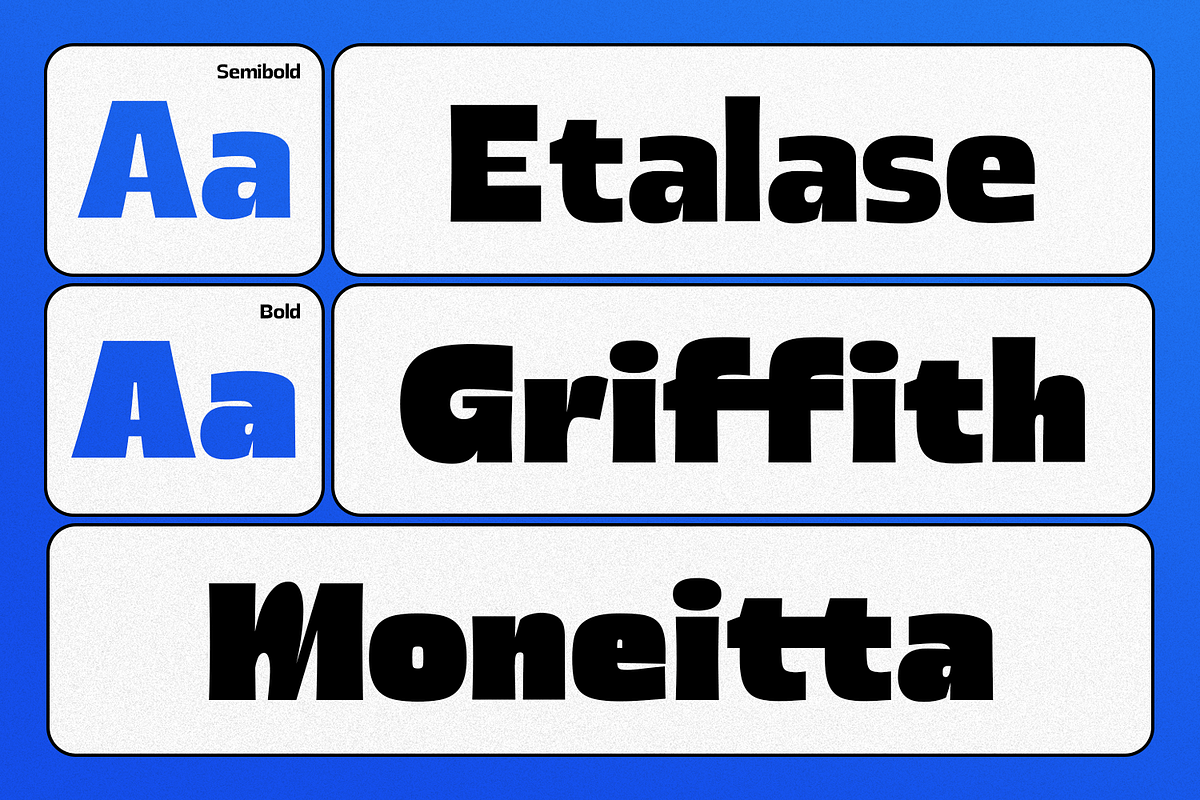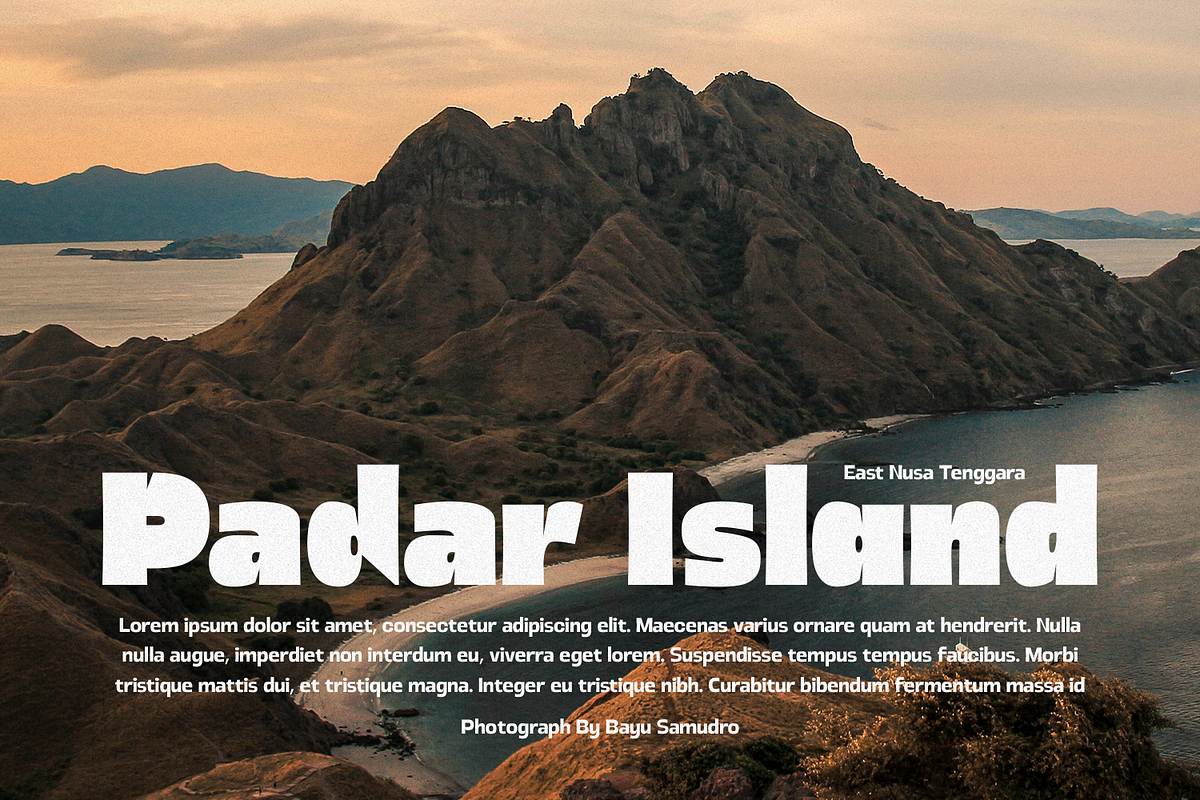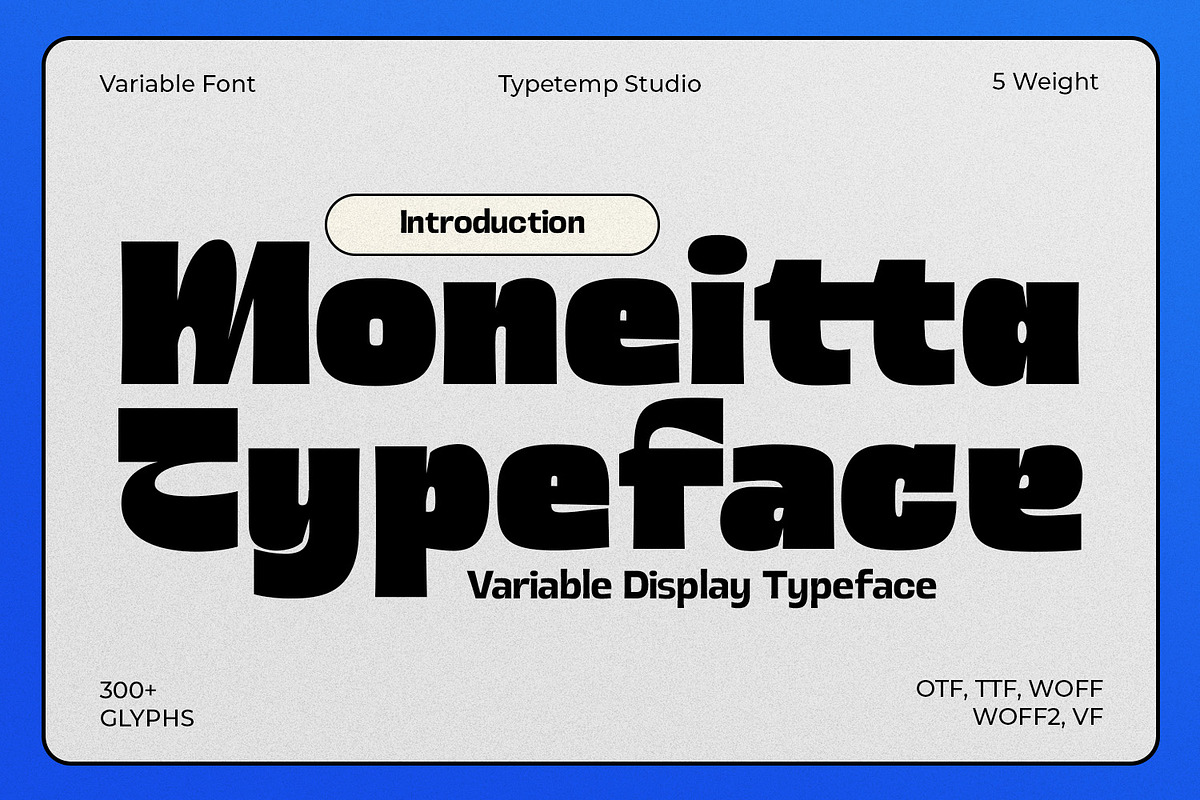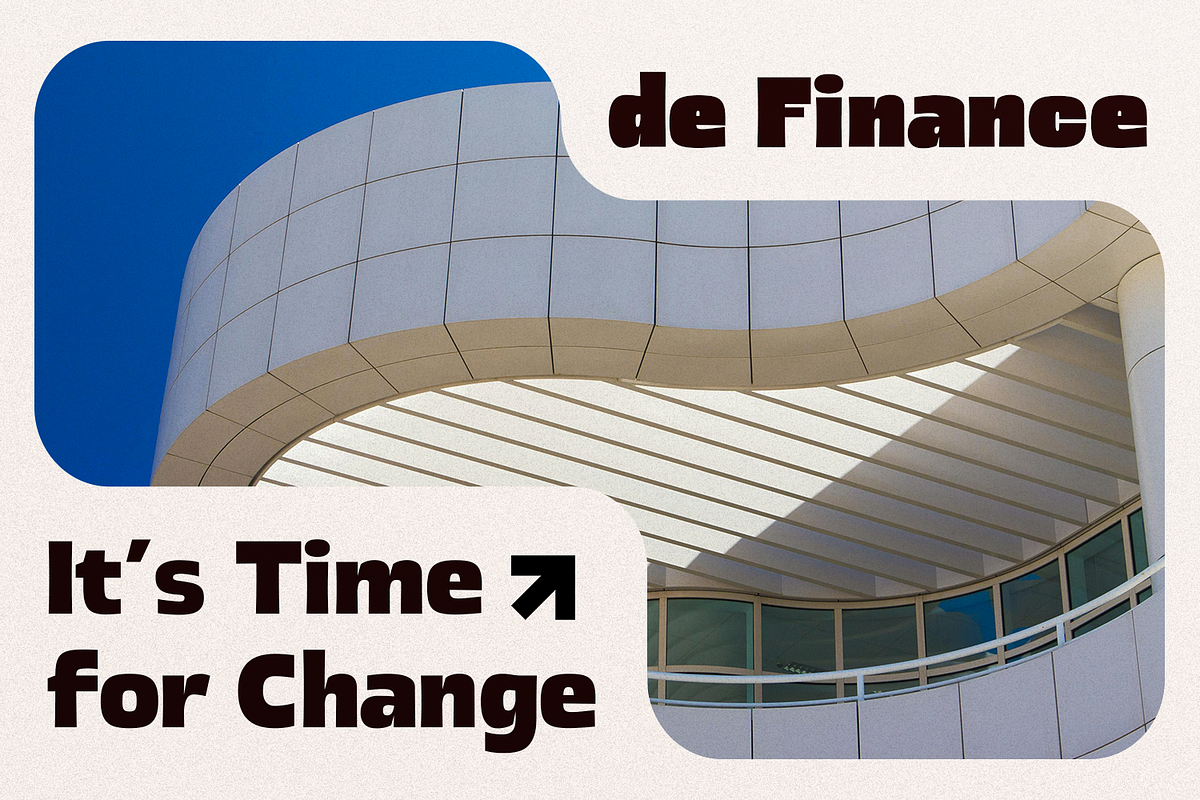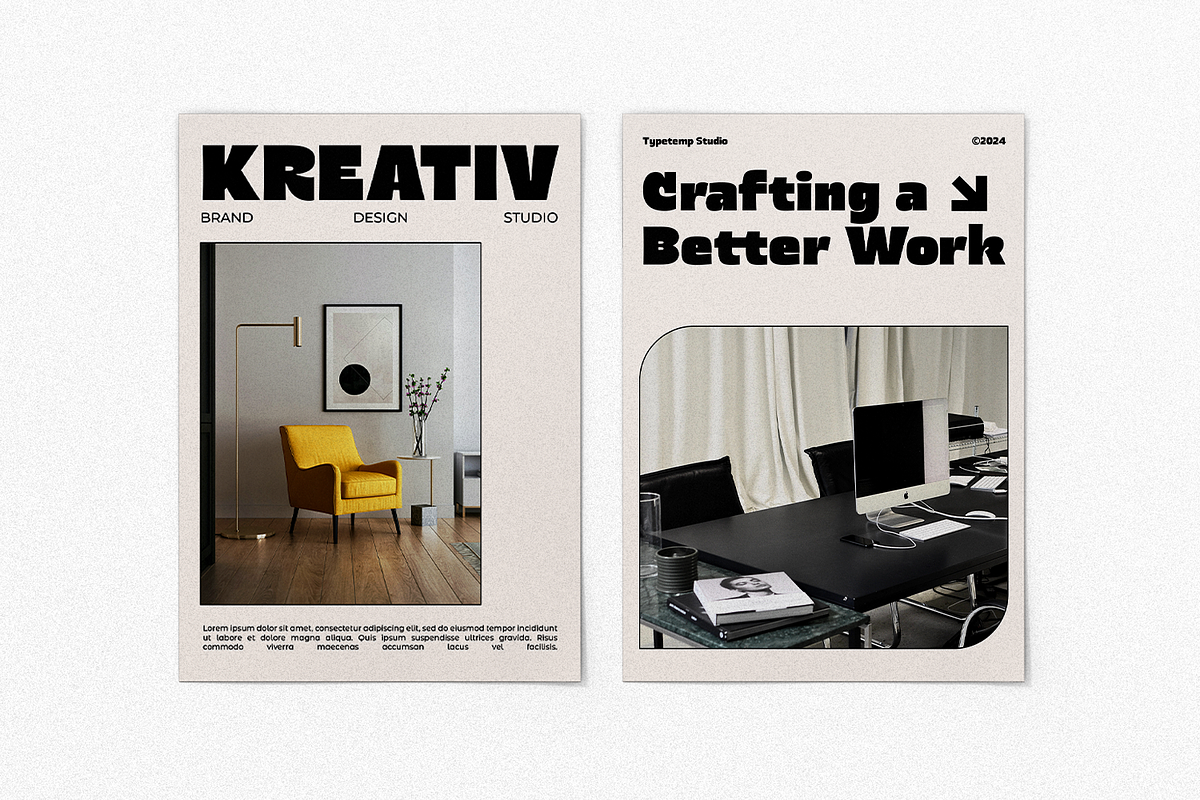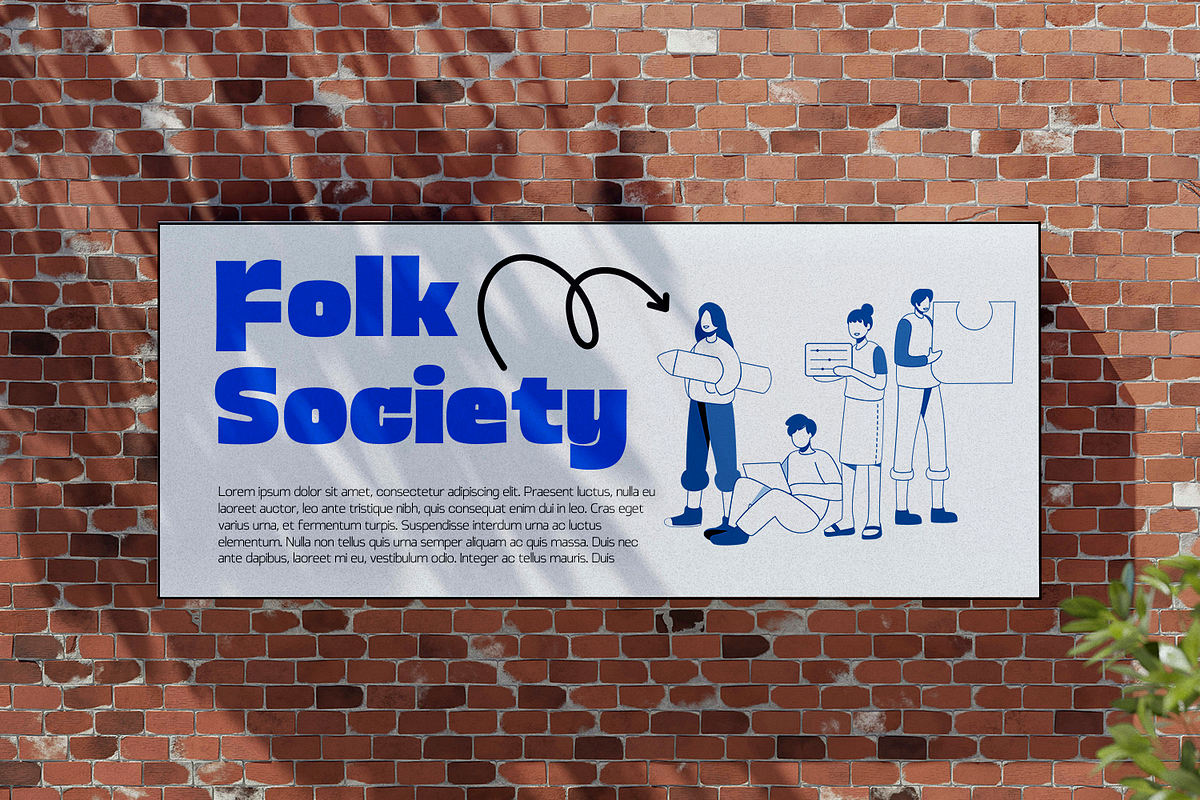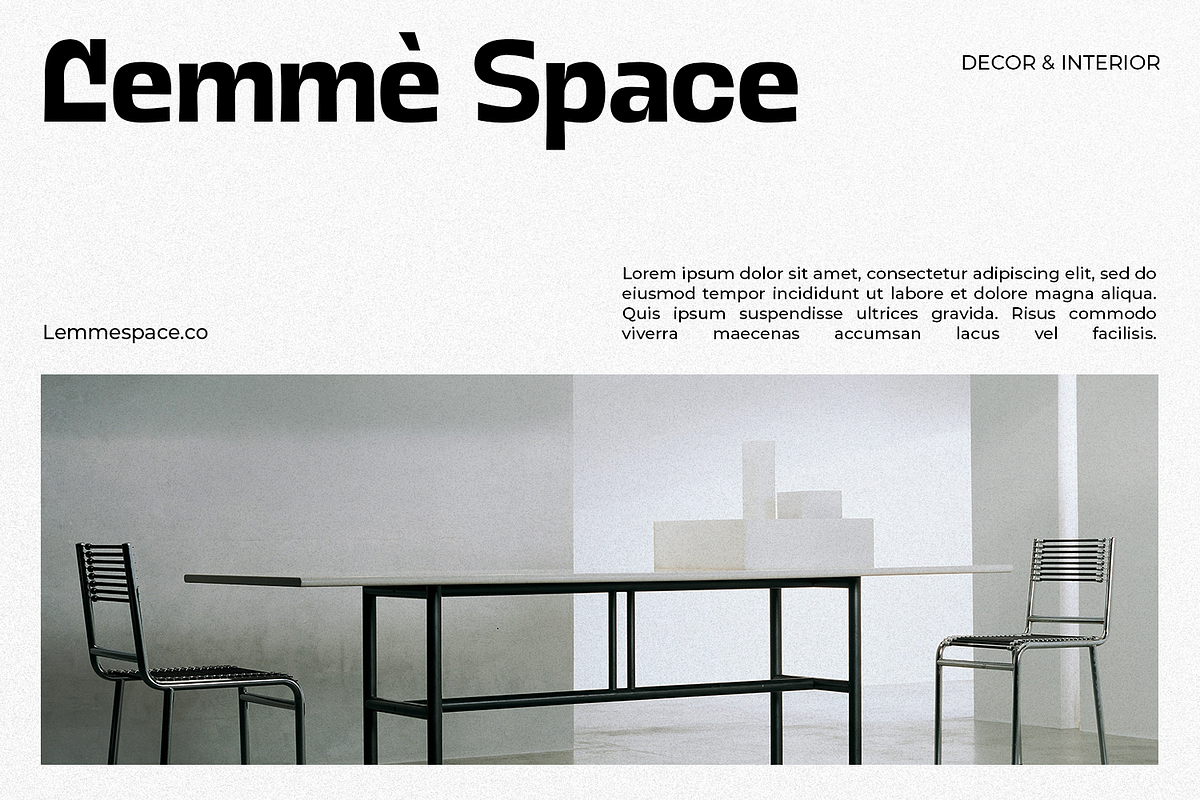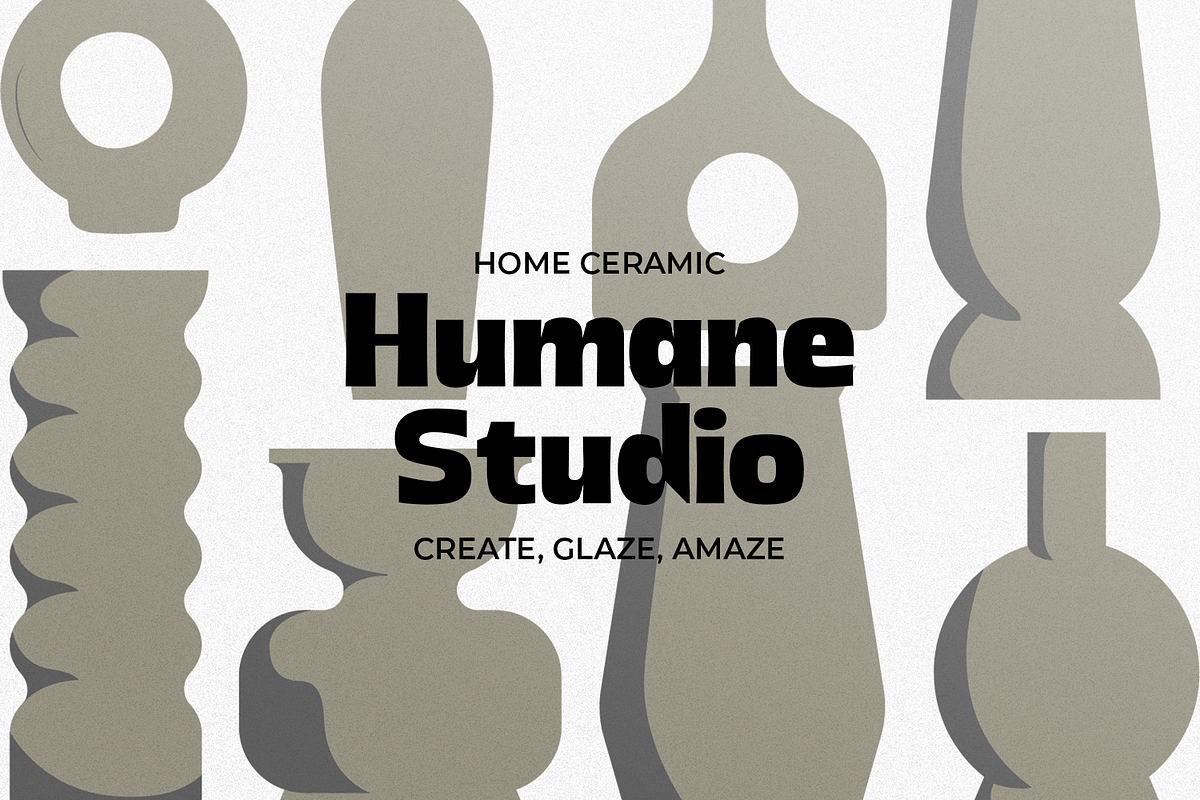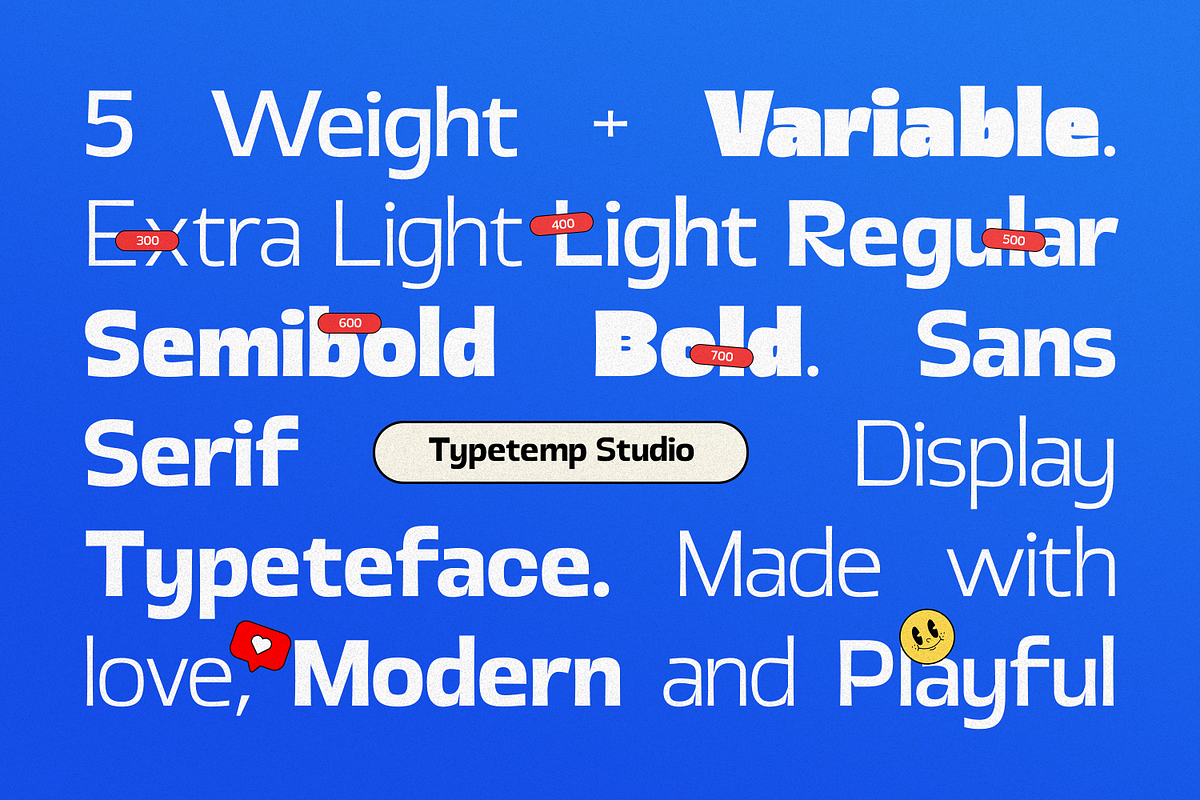
Moneitta - Variable Display Typeface
Moneitta - Display Typeface is a Playful Serif Display comes with 5 Weights (Extra-Light, Light, Regular, Semibold, Bold), Variable, alternatives and ligatures, helps to create stunning Posters, Branding, Tshirt, Social Media Graphics and much more.